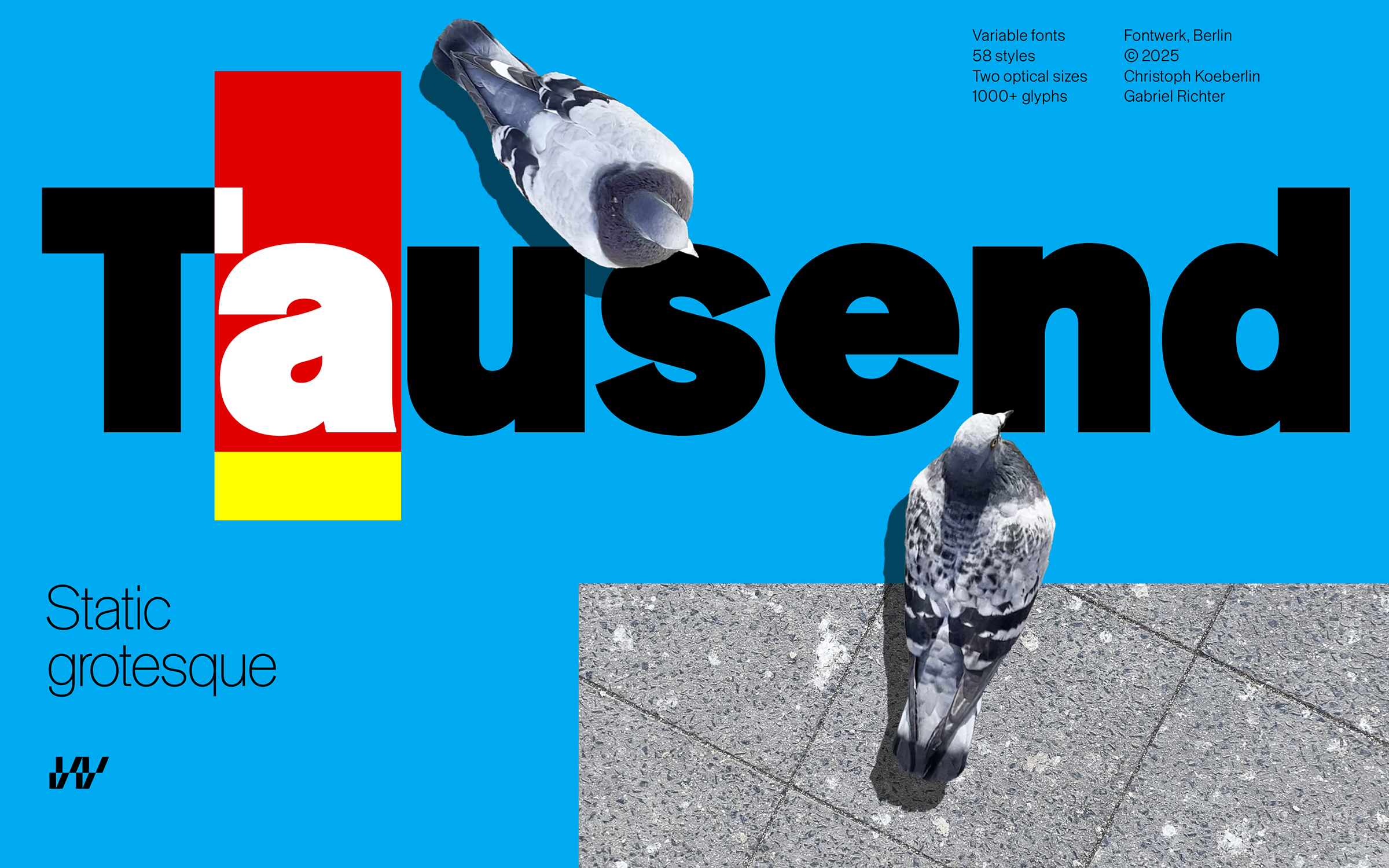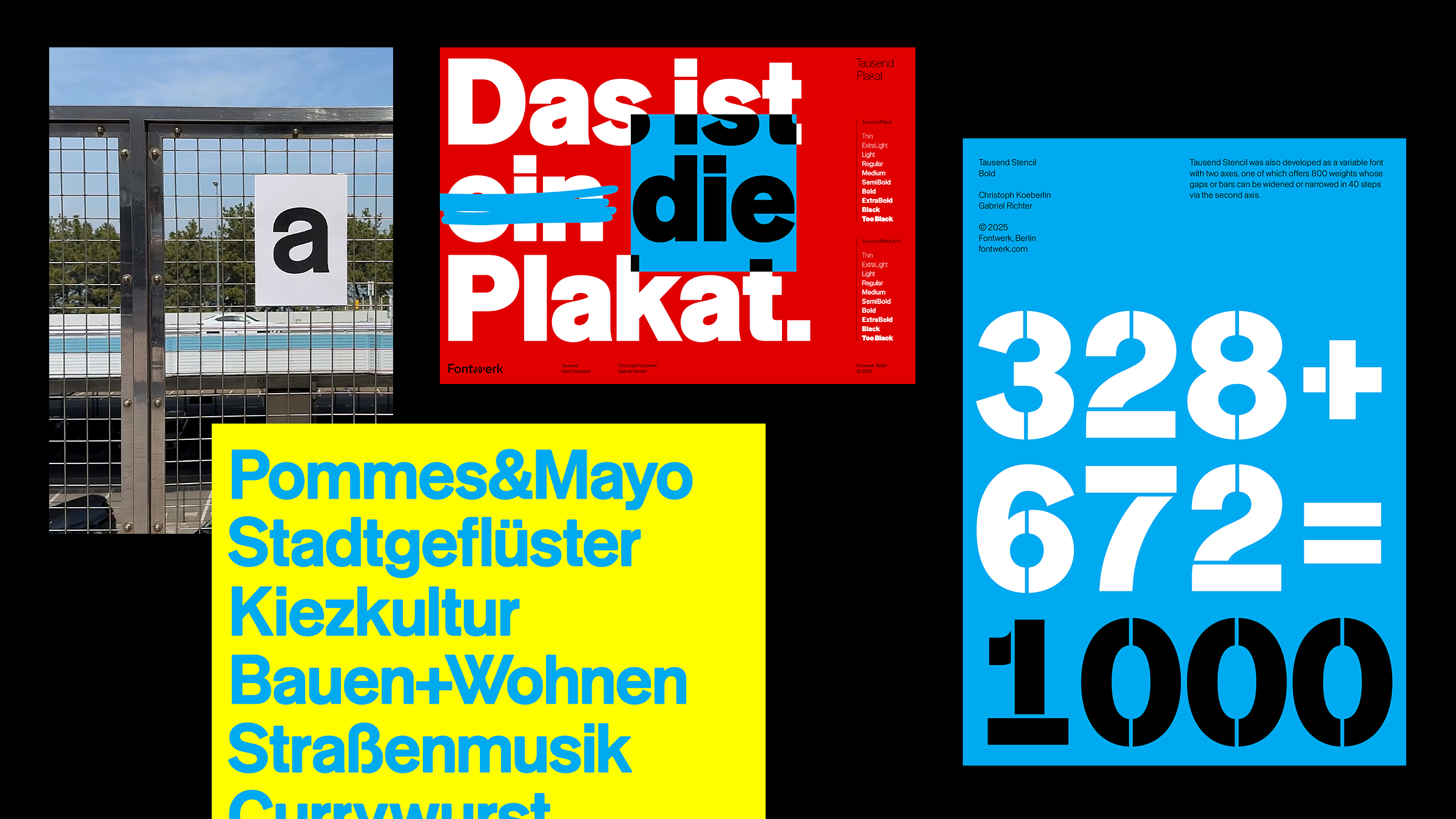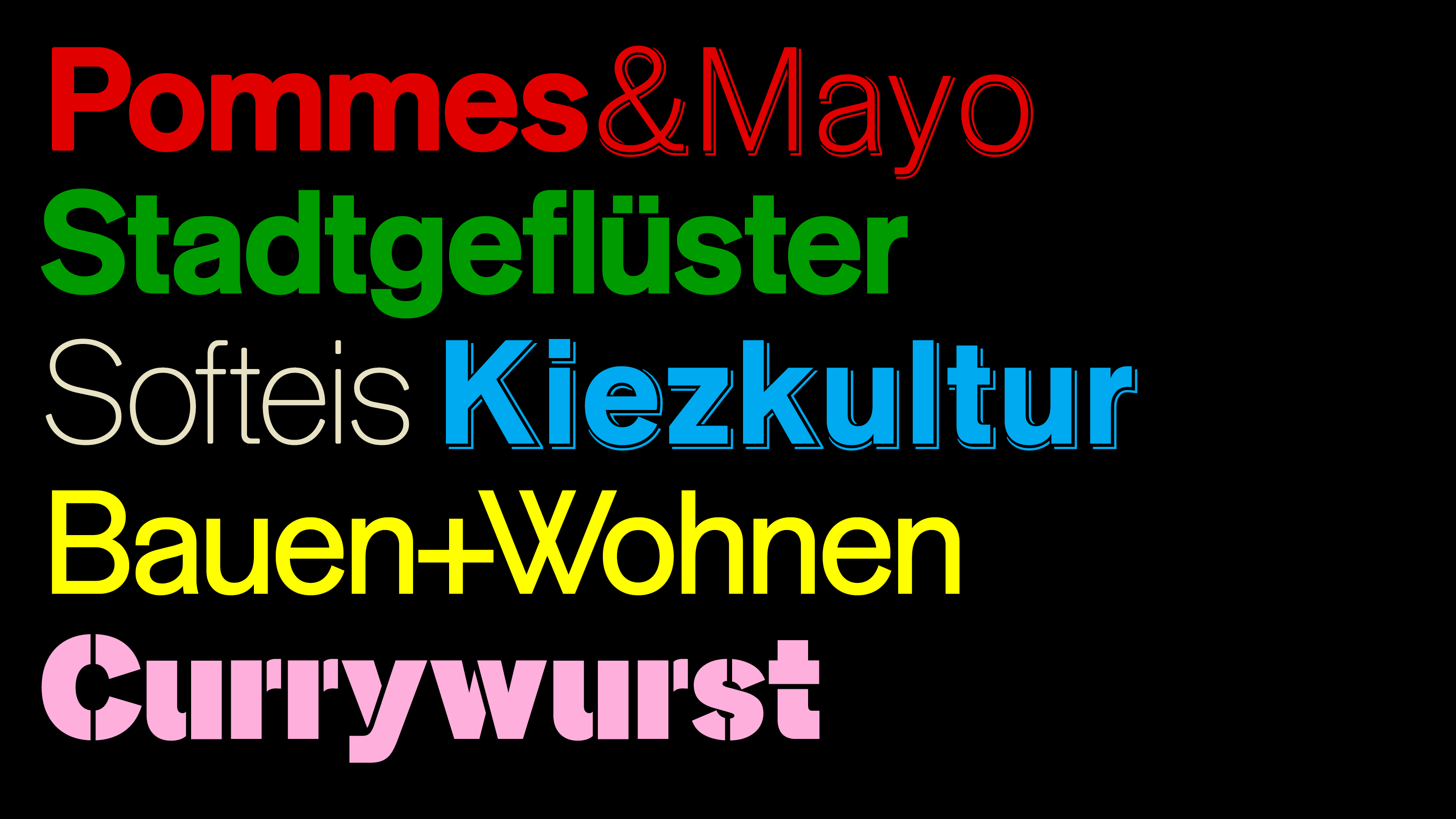
We’ve been teasing for a while now but it’s finally time to introduce you to Tausend—our newest addition to the Fontwerk family.
We’ve been teasing for a while now but it’s finally time to introduce you to Tausend—our newest addition to the family. Also in this month’s roundup, we share a beautiful use case that features Nice and Pangea and there’s also a fantastic Kickstarter Campaign for a very nifty type-related tool. |
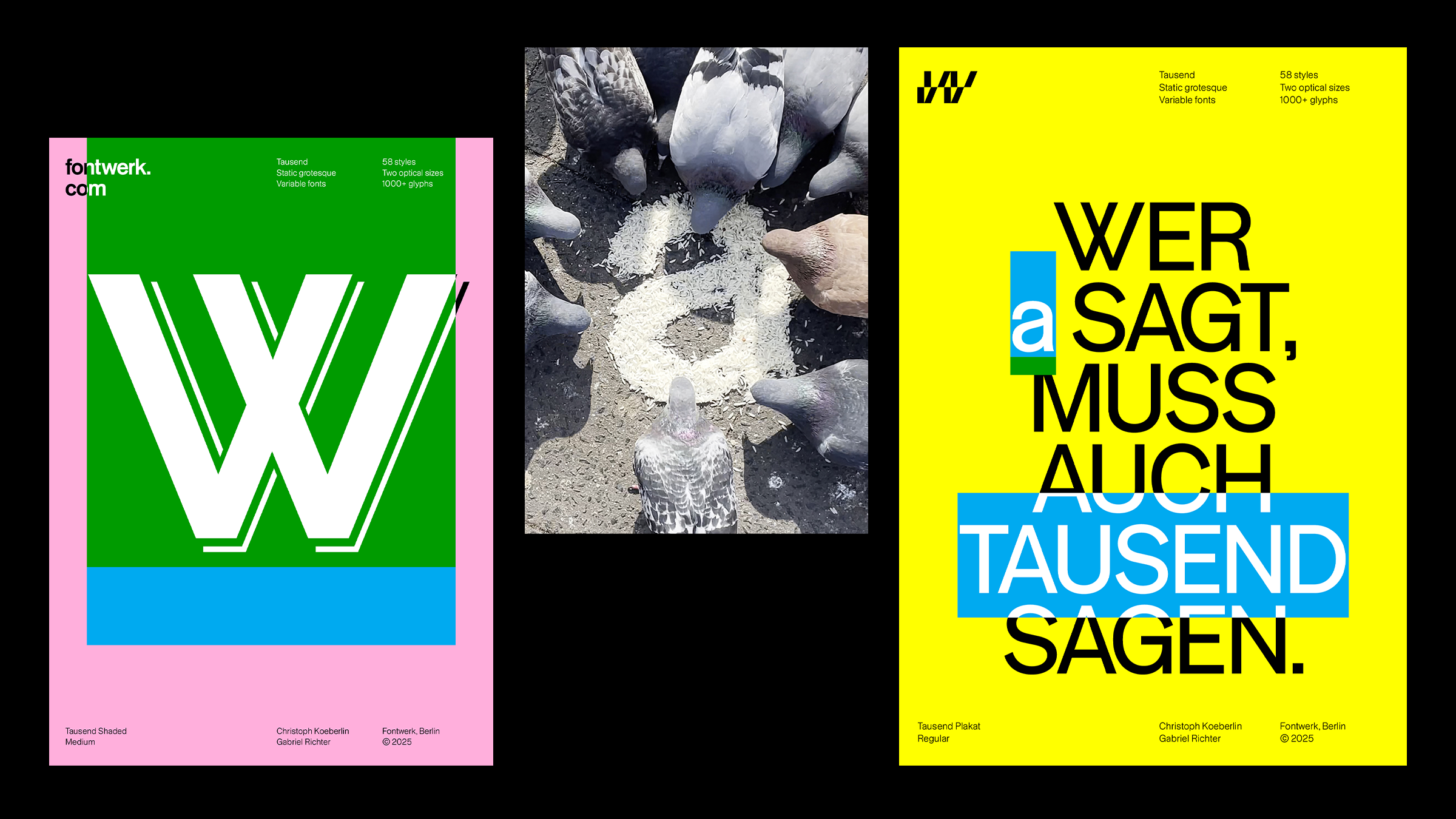 | | The name Tausend says a lot about its quality. It stands for size and diversity, for abundance and potential: a thousand ideas, a thousand possibilities, a thousand reasons. | |
| | In for an a, in for a thousandThe tale of our newest superfamily began three years ago, when during a completely different project, Christoph Koeberlin sketched a very special and particular ‘a’. It was an ‘a’ that found itself in the tradition of German grotesque typefaces, but which had a smile and a wink in its curves. It was these promising details that Christoph began to explore and expand upon in collaboration with Gabriel Richter. Fast forward to 2025 and we are delighted to present Tausend, a multi-talented, Jack-of-all-trades typeface that can stand the test of big and complex project briefs and hold its own under the demands and strains of today’s design environments. The Tausend Collection offers a comprehensive and infinitely versatile system that is at the forefront of variable font technology and includes over 1000 weights and glyphs to play with. Tausend is not a revival but a homage. The small apertures, gentle top-heaviness, curved feet and ‘angular’ curves make Tausend proud, loud and confident. The full collection provides six subfamilies: Tausend, Tausend Plakat, Tausend Soft, Tausend Plakat Soft, Tausend Stencil and Tausend Shaded and offers broad language support as well as an array of stylistic features. | |
We love to see our fonts out in the wild, even more so when we spot not one but two working in partnership for great brands. Both Nice Headline and Pangea Text lay the foundation for the identity for the five-day music festival Unique Moments. Unique Moments takes place in the historic courtyard of the Swiss National Museum Zurich annually and at the most recent festival, they had a star-studded line-up that included Jan Delay, Parcels, Max Herre & Joy Denalane and Róisín Murphy. The combination of Nice and Pangea not only give the printed materials and website (both on desktop and mobile) a strong character and clear identity, but they also ensure optimum readability. ↗ |
Typologie is the brainchild of Recto Verso, a Parisian graphic design studio founded by Pierre-Yann Lallaizon. Since 2020, the studio has been publishing its own collection of typographic ‘color charts’, Typologie. Over hundred foundries from four countries have collaborated on the project, creating a veritable rainbow of contemporary typographic inspiration. Typologie Vert (Green) is the latest iteration of the project and is dedicated to German typography. It features a hand-picked and meticulously curated selection of 100 new typefaces from over 50 different studios. Recto Verso has custom-designed each specimen page and we are delighted that Fontwerk has been featured. If you’re looking for some type-spiration, you can still back their Kickstarter campaign to bring this project to life and nab some exclusive goodies (incredibly, they reached their funding goal within the first 24 hours but you can still get your hands on some type-tastic rewards). ↗ |
Like we always say, good type takes time and so does great web design. For those who’ve been with us a while, you may know that our own website project took a fine time. So it is such a joy to see all our blood, sweat and tears be recognized in the Indigo Awards. Fontwerk.com was awarded an amazing Gold in the Digital Design – UX and UI Website Design category. We are also delighted to hear that our new website was recognized as one of the Finalists in the recent European Design Awards. Lastly, in other award-related news, although we didn’t win the Webby Award in the end (see our April newsletter for more details), we are super grateful and proud to have received a nomination, which is an incredible achievement in itself. Once again, a huge thank you to our team, our designers, and to you our customers who have supported us on the journey. ↗ |